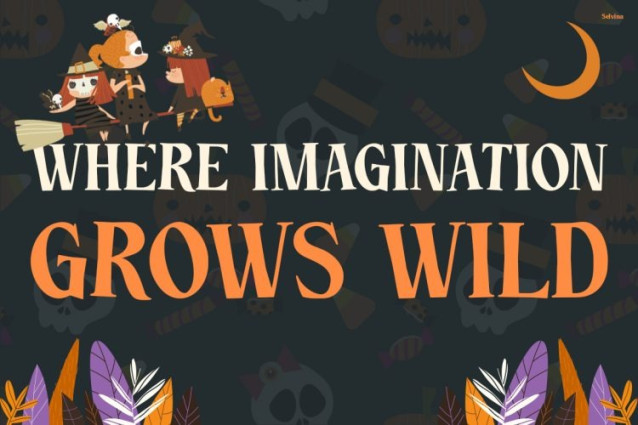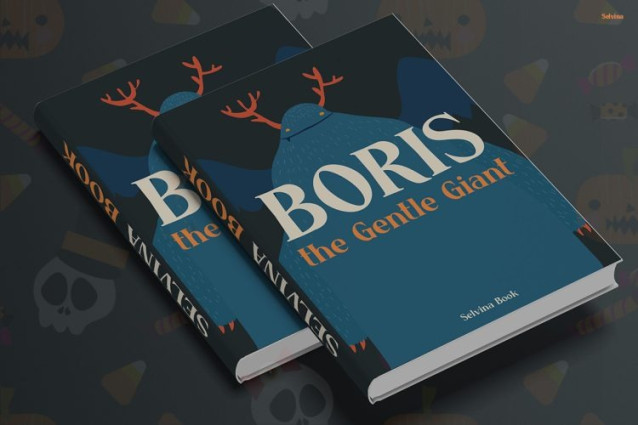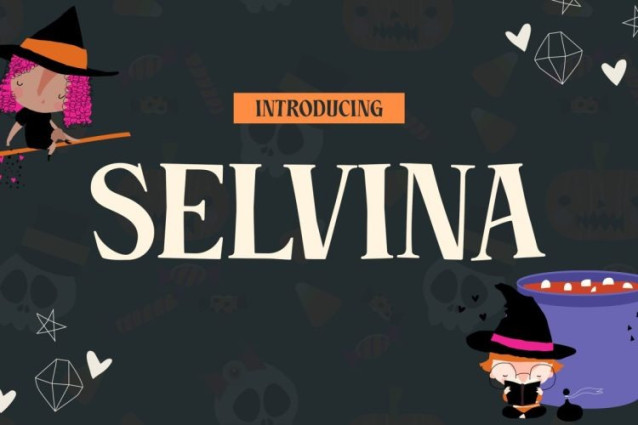
Selvina Font
Selvina Font is a charming and whimsical display font designed to bring imagination to life. With its elegant letterforms and playful personality, this font instantly creates a magical storybook atmosphere. Moreover, its fairy-tale-inspired details add warmth and creativity to every design. At the same time, the carefully crafted characters maintain excellent readability. As a result, your projects feel both enchanting and professional. Whether you’re creating a children’s book or designing playful branding, Kids Font Selvina helps transform ordinary words into captivating visual stories. Furthermore, its unique aesthetic makes every headline feel more memorable and engaging.
Selvina is ideal for graphic designers, children’s book authors, teachers, publishers, crafters, and creative entrepreneurs. In addition, it is perfect for anyone seeking a font that combines charm, imagination, and versatility. Likewise, brands targeting children and families can use it to create a friendly and welcoming impression.